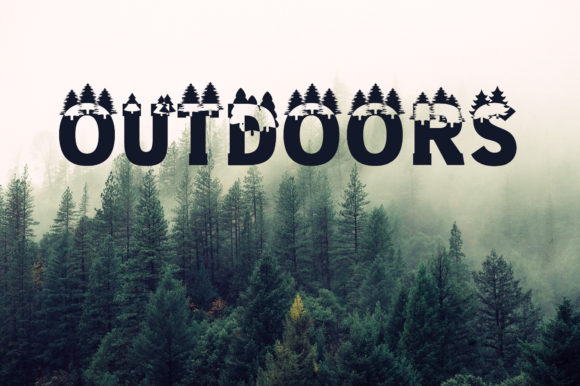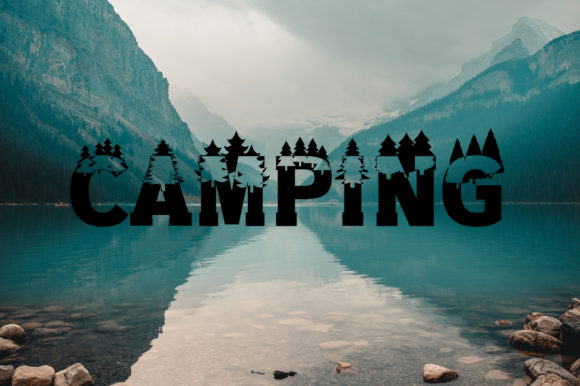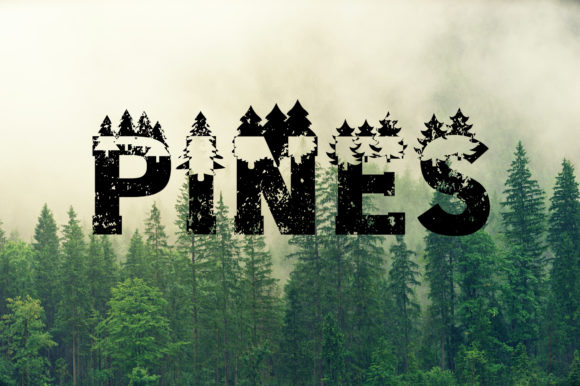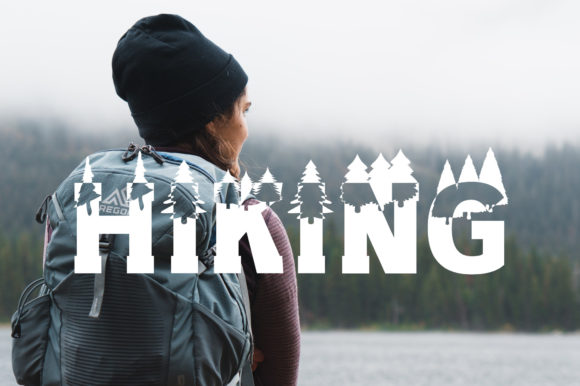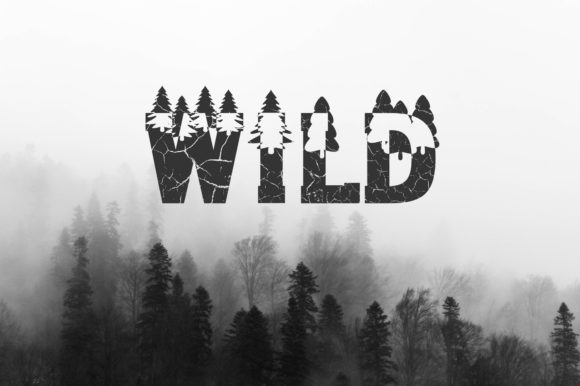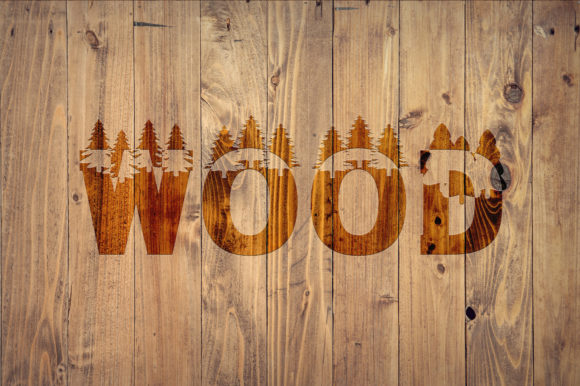
Unleash Your Creativity with Forest Font: A Unique Decorative Font
Are you tired of using the same old fonts for your designs? Look no further than Forest Font, a stunning and unique decorative font that’s sure to take your creations to the next level. With its incredibly stylish look, Forest Font is perfect for designers and crafters who want to add a touch of elegance and sophistication to their work.
What is Forest Font?
Forest Font is a decorative font that’s inspired by the natural beauty of the forest. Its unique and interesting design makes it stand out from other fonts, and its versatility makes it suitable for a wide range of applications. Whether you’re creating logos, quotes, invitations, business cards, or PowerPoint presentations, Forest Font is the perfect choice.
Features of Forest Font
So, what makes Forest Font so special? Here are just a few of its key features:
- Unique and decorative design: Forest Font has a one-of-a-kind design that’s sure to grab attention.
- Highly versatile: Use Forest Font for a wide range of applications, from logos and branding to invitations and presentations.
- Elegant and sophisticated: Forest Font adds a touch of elegance and sophistication to any design.
Uses for Forest Font
So, what can you use Forest Font for? The possibilities are endless! Here are just a few ideas to get you started:
- Logos and branding: Create a unique and memorable logo for your business or brand with Forest Font.
- Invitations and events: Use Forest Font to create beautiful and elegant invitations for weddings, parties, and other events.
- Business cards and stationery: Add a touch of sophistication to your business cards and stationery with Forest Font.
- PowerPoint presentations: Make your presentations stand out with Forest Font, perfect for titles, headings, and more.
- Social media graphics: Use Forest Font to create eye-catching social media graphics that will grab attention.
Why Choose Forest Font?
With so many fonts to choose from, why should you choose Forest Font? Here are just a few reasons:
- Unique design: Forest Font has a unique design that’s sure to stand out from the crowd.
- High-quality: Forest Font is a high-quality font that’s designed to produce crisp and clear results.
Tips for Using Forest Font
Here are a few tips for using Forest Font to get the best results:
- Use it sparingly: Forest Font is a decorative font, so use it sparingly to add emphasis and interest to your designs.
- Pair it with other fonts: Forest Font pairs well with other fonts, so experiment with different combinations to find the perfect look.
- Experiment with colors: Forest Font looks great in a range of colors, so don’t be afraid to experiment and find the perfect color scheme.
| Font Name | Forest Font |
| Author | Vladimir Carrer |
Forest Font is a unique and decorative font that’s perfect for designers and crafters who want to add a touch of elegance and sophistication to their work. With its highly versatile design and ease of use, Forest Font is sure to become a favorite in your font collection. So why wait? Download Forest Font today and start creating gorgeous and timeless designs!